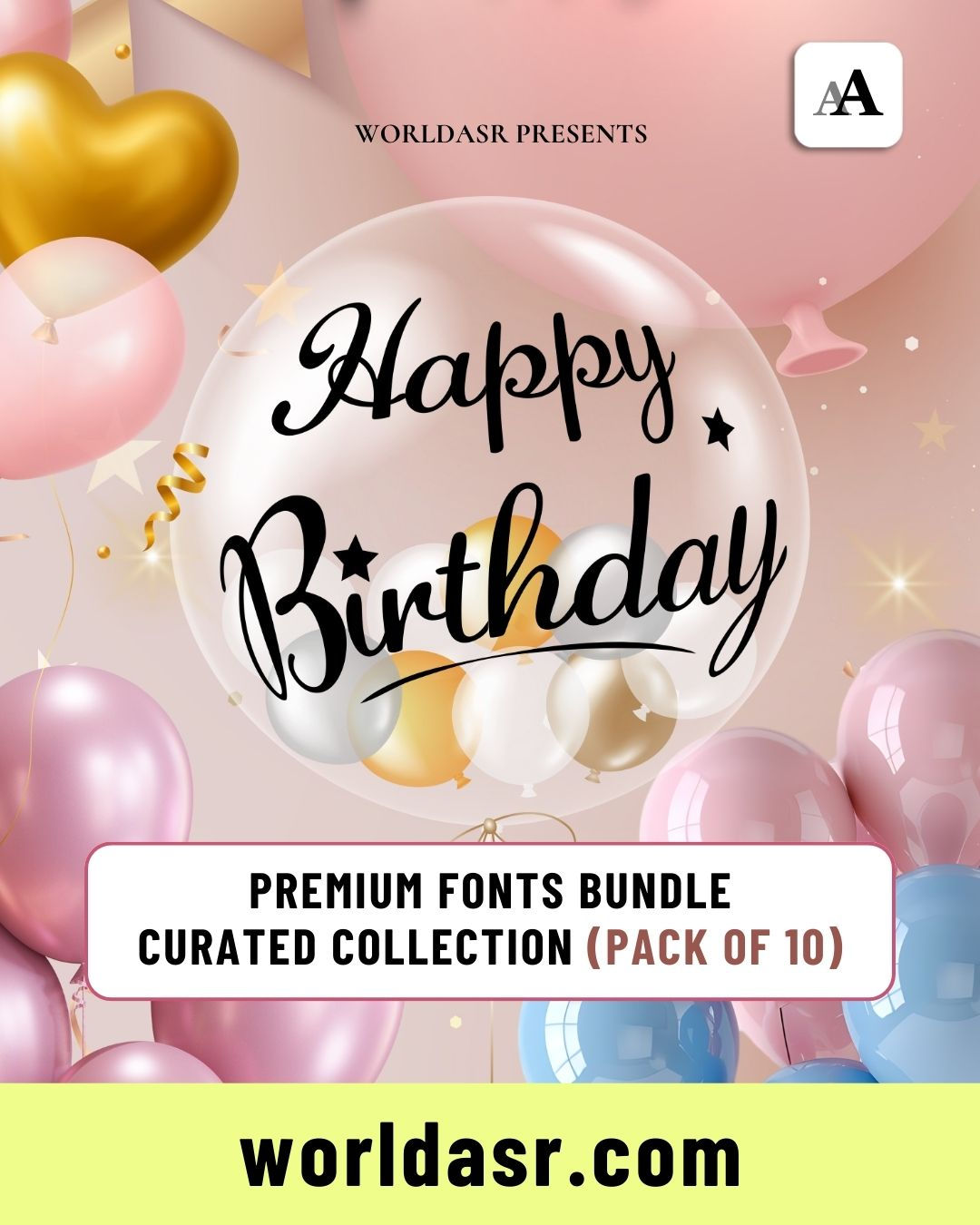
Make every greeting shine with the Happy Birthday - Premium Fonts (Pack of 10).
This festive set blends playful hand-lettered scripts, bubbly rounded displays, ribbon-style titles, sprinkle and confetti textures, party marker fonts, and clean pairing sans for dates and wishes. Perfect for invitation cards, social posts, party banners, cake toppers, video titles, and gift tags. Each family is optimized for print and screen with clean kerning, alternates and ligatures, and multilingual support. Delivered in OTF/TTF with WOFF/WOFF2 webfonts for instant branding. 🎉🅰️
🎂 10 birthday-themed type families with pairing options
🎀 Styles include hand-lettered script, rounded display, ribbon titles, sprinkle/confetti textures, and clean sans
🧭 Kerning tuned for headlines and cards, alternates and ligatures included
🌐 Multilingual support (Latin + extended)
🖥️ Ideal for invites, social wishes, banners, videos, and printables
Set a joyful, celebratory voice for every birthday message. 🥳✨